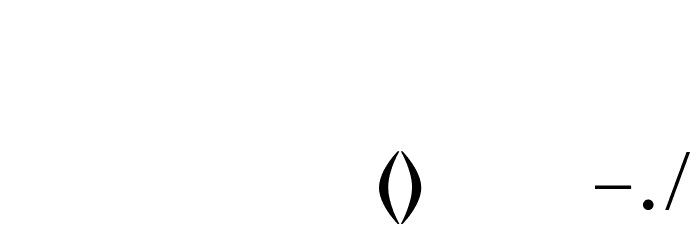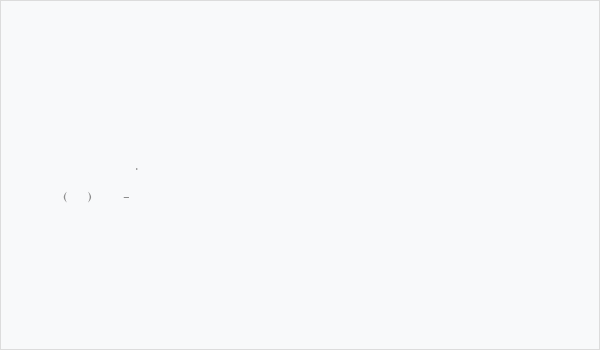
Ifao N Copte Font
Ifao N Copte Description
This font is a unique and decorative typeface inspired by ancient scripts. It features intricate and artistic letterforms that resemble historical inscriptions, giving it a distinct and exotic appearance. The characters are crafted with a combination of curves and sharp angles, creating a visually striking effect. The font's design is reminiscent of ancient cultural symbols, making it ideal for projects that require a touch of historical or cultural authenticity. Its decorative nature makes it suitable for use in titles, logos, and other creative applications where a bold and distinctive look is desired.
| Proposed Projects | Ideal for historical or cultural projects, logos, titles, and creative designs requiring a unique look. |